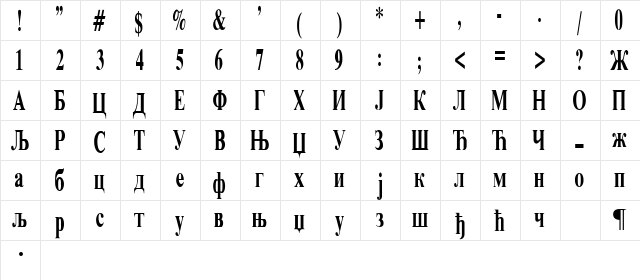
Cirilica 60 Regular
Design Context for Cirilica 60 Typeface
Cirilica 60 offers clean, dependable letterforms without strong stylistic allegiance, making it a practical choice for designers who need flexibility.
Pro Tip: Use Cirilica 60 in both headline and body roles to test its range before committing to a single application.